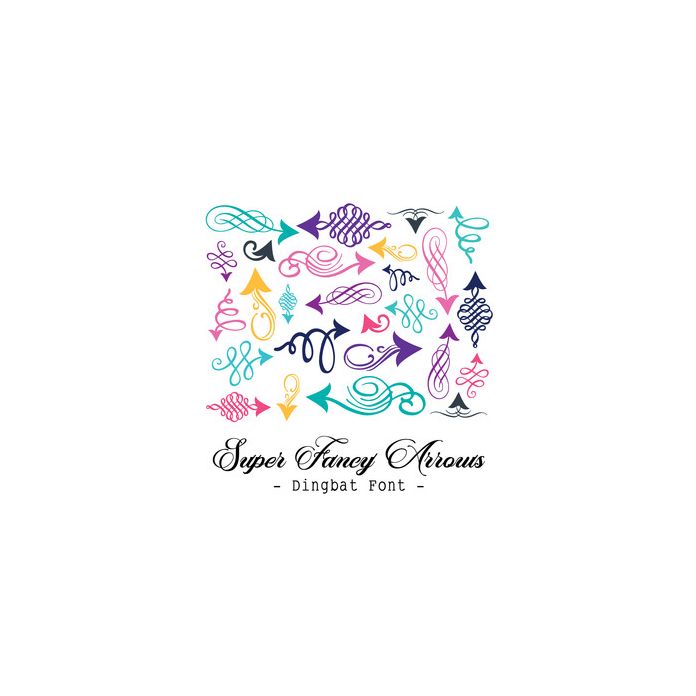
Super Fancy Arrow Dingbat Font. Includes 26 fancy arrows, perfect for card making, planners, scrapbooking, gifts and all kinds of craft projects!. All are assigned to an upper case letter starting with 'A' or can be accessed via glyphs. My other arrow fonts can be found in the Silhouette store. For more design ideas, coordinating designs & products and inspiration, please visit my blog http://www.sarahhurleyblog.com